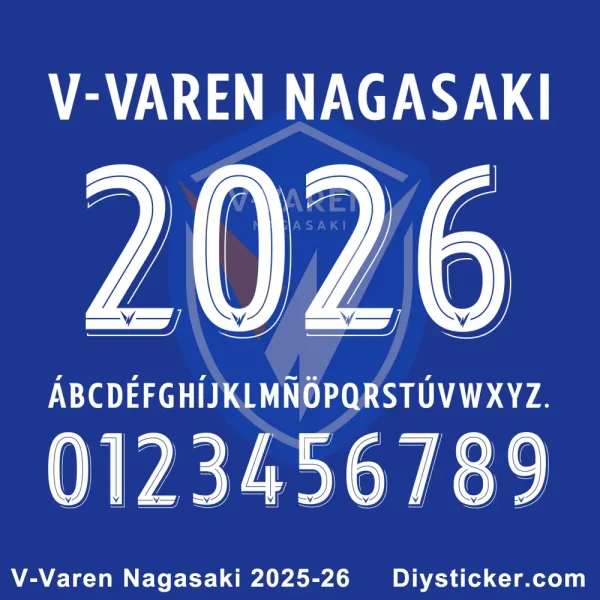
V-Varen Nagasaki 2025-26 Font Download
Introducing the official V-Varen Nagasaki 2025-26 font – the exact typeface used in the club’s jerseys, matchday graphics, and promotional materials. This complete digital font pack is ideal for designers, fans, and creators who want to incorporate the authentic V-Varen Nagasaki style into their projects.